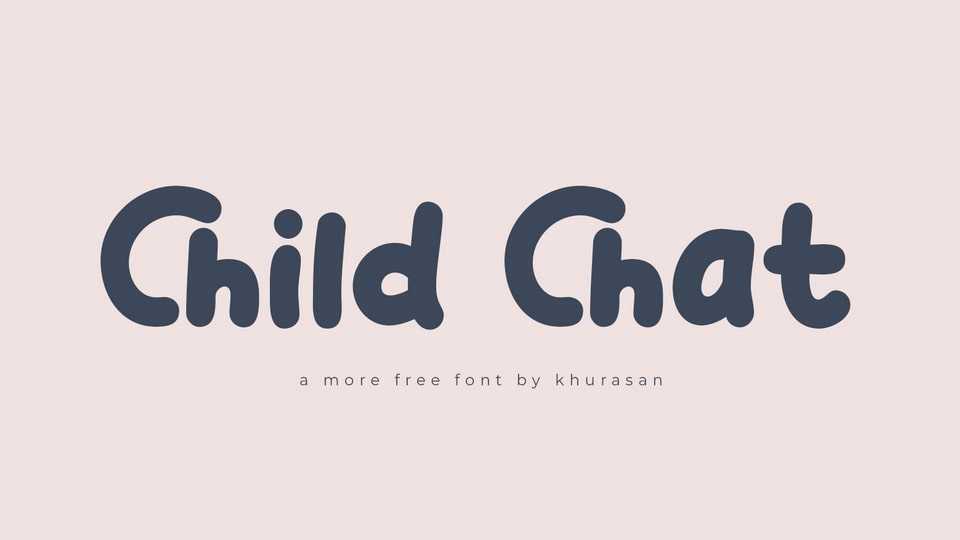
Download Child Chat font, a simple and cute handwritten typeface designed to add some personality to comic books, packaging, or branding. Child Chat font is also prefect to spice up your digital notes!